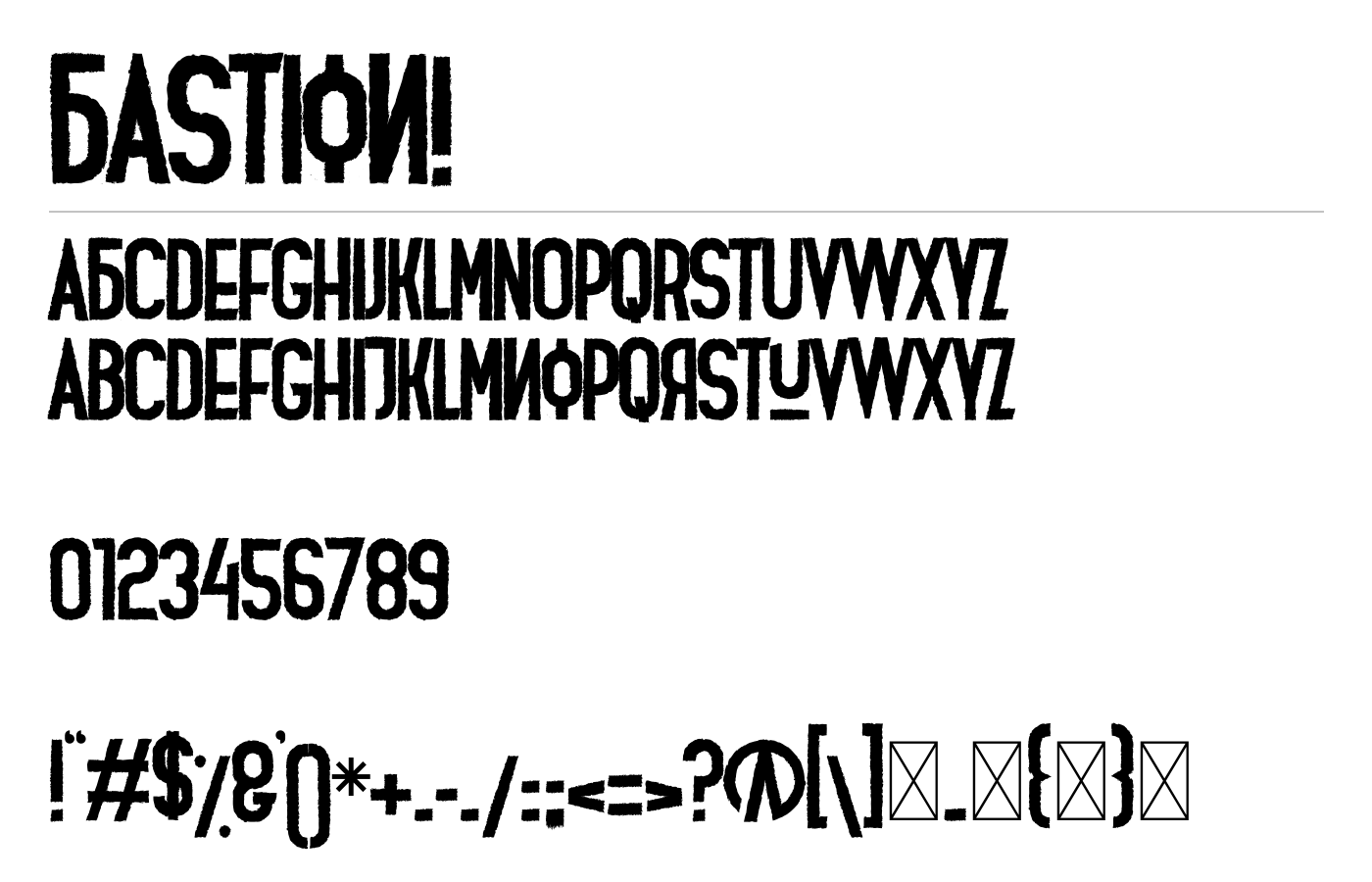
Bastion! is a bold, condensed sans-serif font with a rough, textured appearance that gives it a strong, hand-crafted feel. Its tall, narrow letterforms and uneven stroke edges create an edgy, urban vibe, making it ideal for attention-grabbing headlines, posters, and branding that seeks to convey a sense of raw energy and individuality. This font works well for creative projects and designs that want to stand out with a gritty, artistic personality.
Bastion! Font